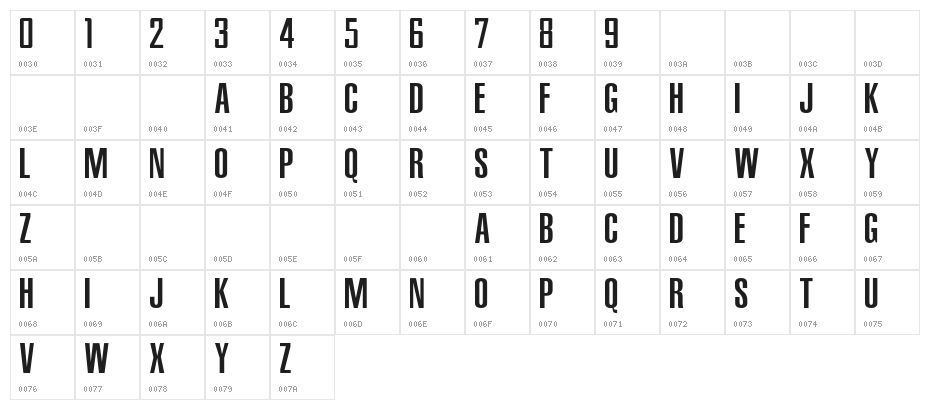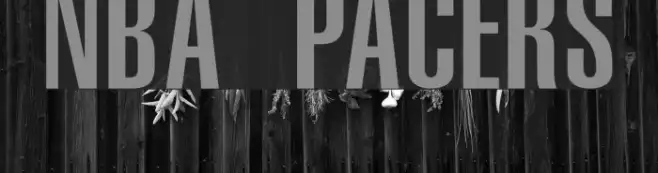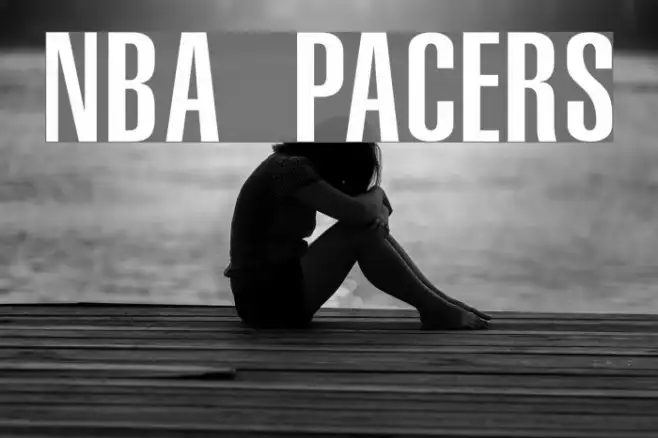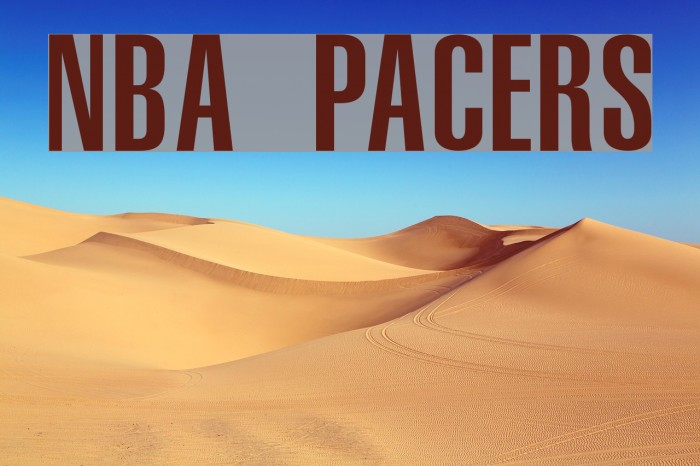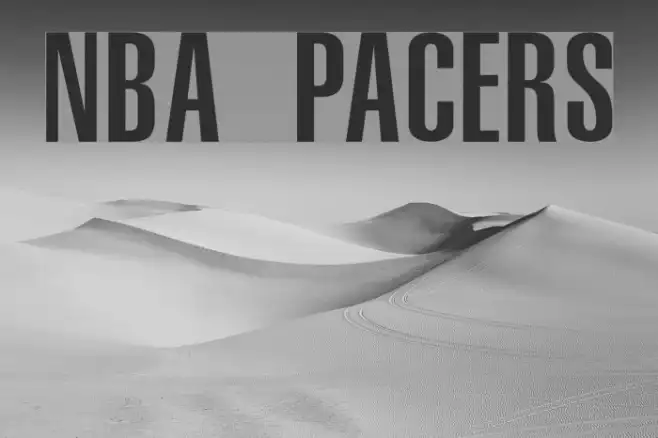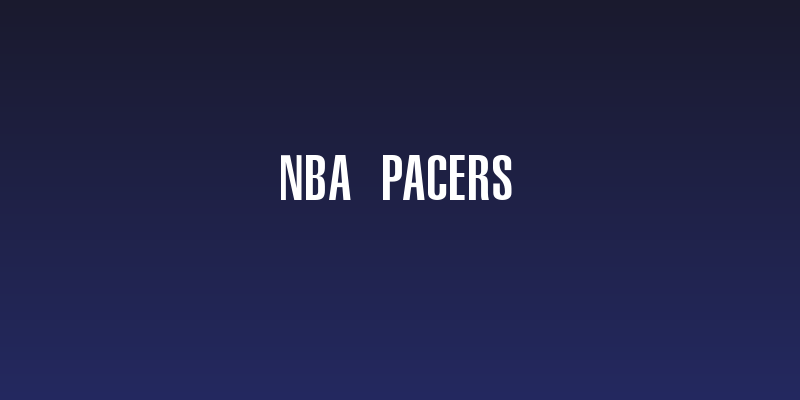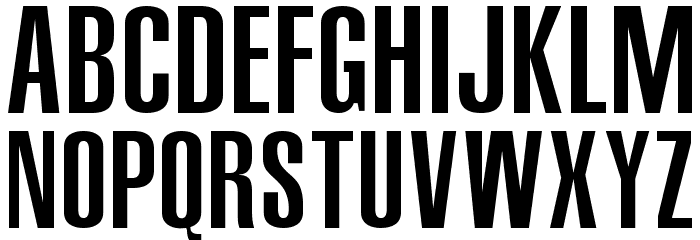
NBA Pacers Font
NBA Pacers Description
This font features a bold and impactful design with tall, narrow characters that convey a sense of strength and modernity. The uppercase letters are uniform in height, creating a cohesive and structured appearance. The numbers are similarly styled, maintaining the font's consistent look. The absence of lowercase letters and special characters suggests a focus on simplicity and clarity. Its clean lines and lack of embellishments make it suitable for projects that require a straightforward and assertive typeface.
| Proposed Projects | Ideal for sports branding, team logos, posters, and headlines where a strong and modern look is desired. |